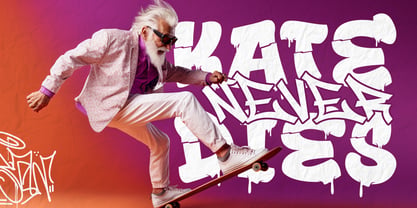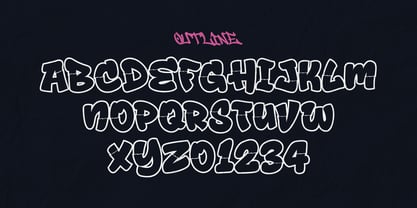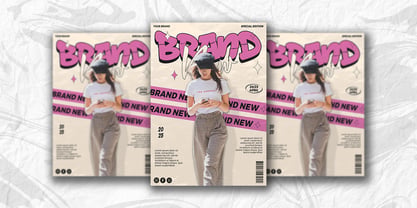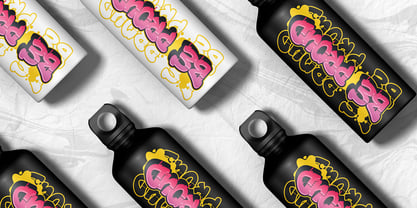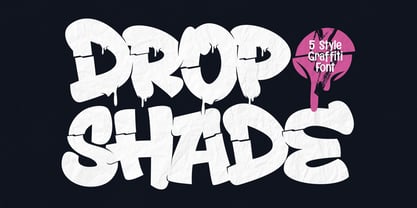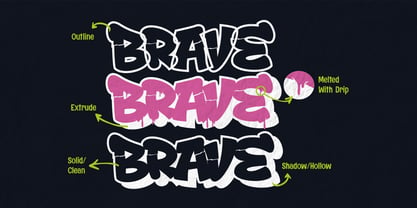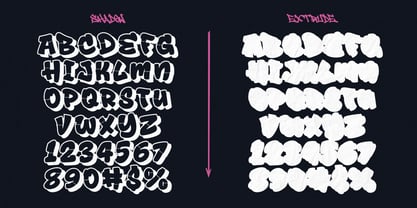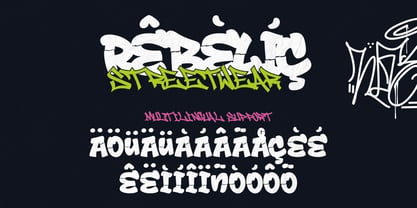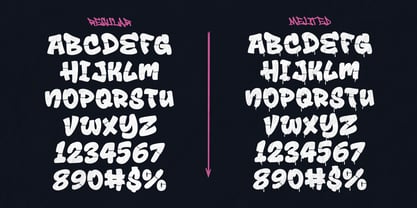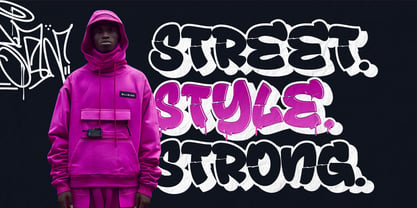
Drop Shade
Outlined
Drop Shade is a bold and dynamic display typeface that blends the raw energy of graffiti culture with the striking impact of a three-dimensional layered style. Inspired by dripping wall art and urban street lettering, this font is designed to make a statement wherever it is used. Each letter is crafted with bold strokes, smooth curves, and a distinctive melted effect, giving the impression of fresh spray paint dripping across a wall. The layered 3D style enhances depth and adds a sense of motion, making your typography stand out in a powerful way.
This font is perfect for projects that embrace urban culture and contemporary creativity. Whether you’re designing album covers for hip-hop and electronic music, posters for skate and street events, apparel graphics for streetwear brands, or merchandise that needs an edgy look, Drop Shade brings authenticity and style to your work. Its bold characters ensure readability at large sizes, while the dripping details keep the design expressive, playful, and street-smart.
Versatile in use, Drop Shade adapts seamlessly to both print and digital platforms. Use it for logos, advertising campaigns, product packaging, and social media graphics where you want bold typography to capture attention instantly. For digital creatives, the font maintains sharpness and clarity across screens, making it suitable for websites, esports branding, and creative content that targets a young, trend-focused audience.
Drop Shade is not just a font—it’s a creative tool for storytelling. It embodies the rebellious yet artistic essence of graffiti while offering professional usability for modern design projects. Designers love it because it delivers energy, personality, and impact in every application. With its dripping melted effect and layered 3D construction, Drop Shade ensures your typography doesn’t just complement your design—it becomes the centerpiece.
Whether you are working on fashion branding, music promotions, DIY projects, or bold marketing campaigns, Drop Shade provides a unique visual voice that connects with today’s culture. It celebrates creativity, individuality, and the spirit of street art, making it a must-have addition to any designer’s type collection.